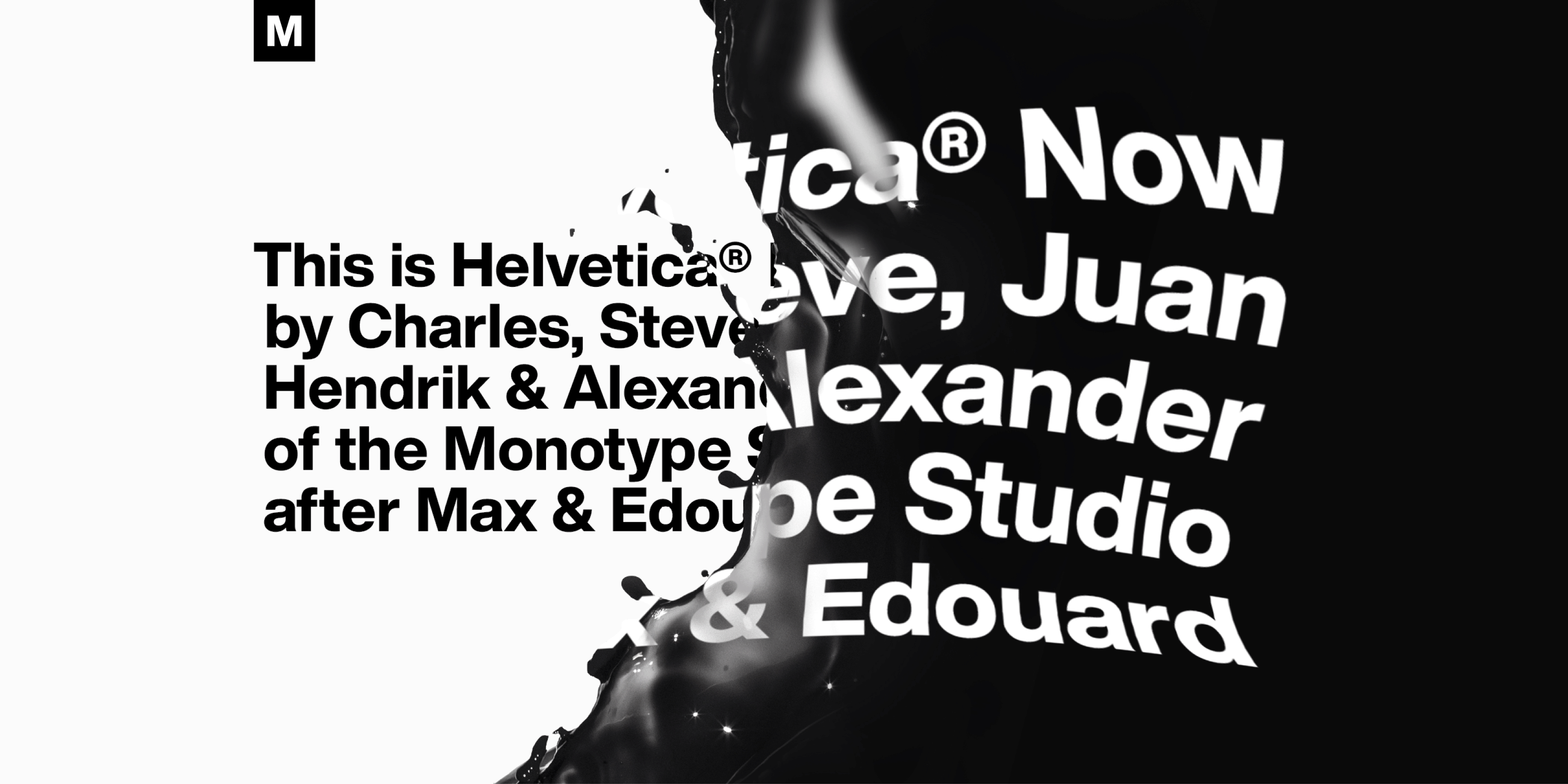
Helvetica Now Font is perfect for corporate brand identities, modern web interfaces, professional presentations, minimalist packaging design, contemporary signage systems, digital applications, global marketing campaigns, and sophisticated editorial layouts.
Helvetica Now Font is exciting because it represents the pinnacle of contemporary typographic evolution, combining the legendary clarity and neutrality of classic Helvetica with advanced digital optimization and modern design requirements. Its refined proportions and enhanced readability make it the perfect choice for brands that demand both timeless reliability and cutting-edge performance across all media platforms.
The Helvetica Now Font family includes comprehensive modern variations: Helvetica Now Micro, Helvetica Now Text, Helvetica Now Display, along with multiple weights from Thin to Black, plus condensed and extended versions, providing designers with the most advanced and versatile Helvetica system ever created for contemporary design challenges.
When seeking the ultimate neutral typography solution, Helvetica Now Font Free Download stands out as the definitive choice for designers working on professional and corporate projects that require absolute typographic excellence and universal compatibility. This revolutionary typeface builds upon the legendary Helvetica foundation while incorporating contemporary refinements that enhance its performance in digital environments. The font's neutral character and technical superiority create immediate credibility among professional audiences who demand the highest standards of typographic quality.
Professional designers consistently rely on Helvetica Now Font for projects requiring uncompromising typographic excellence and universal appeal. Its meticulously engineered letterforms feature optimized characteristics that work exceptionally well across all media formats and applications. The font's ability to convey professionalism and clarity while maintaining perfect neutrality makes it invaluable for comprehensive brand identity systems in corporate, technology, and international communication sectors.
Whether you're developing global corporate identities, creating professional digital interfaces, or designing international marketing campaigns, Helvetica Now Font delivers the typographic excellence and universal reliability that serious brands require. Its proven performance across diverse applications, combined with its comprehensive family structure, makes it an essential tool for designers who refuse to compromise on quality or functionality in their professional typography choices.